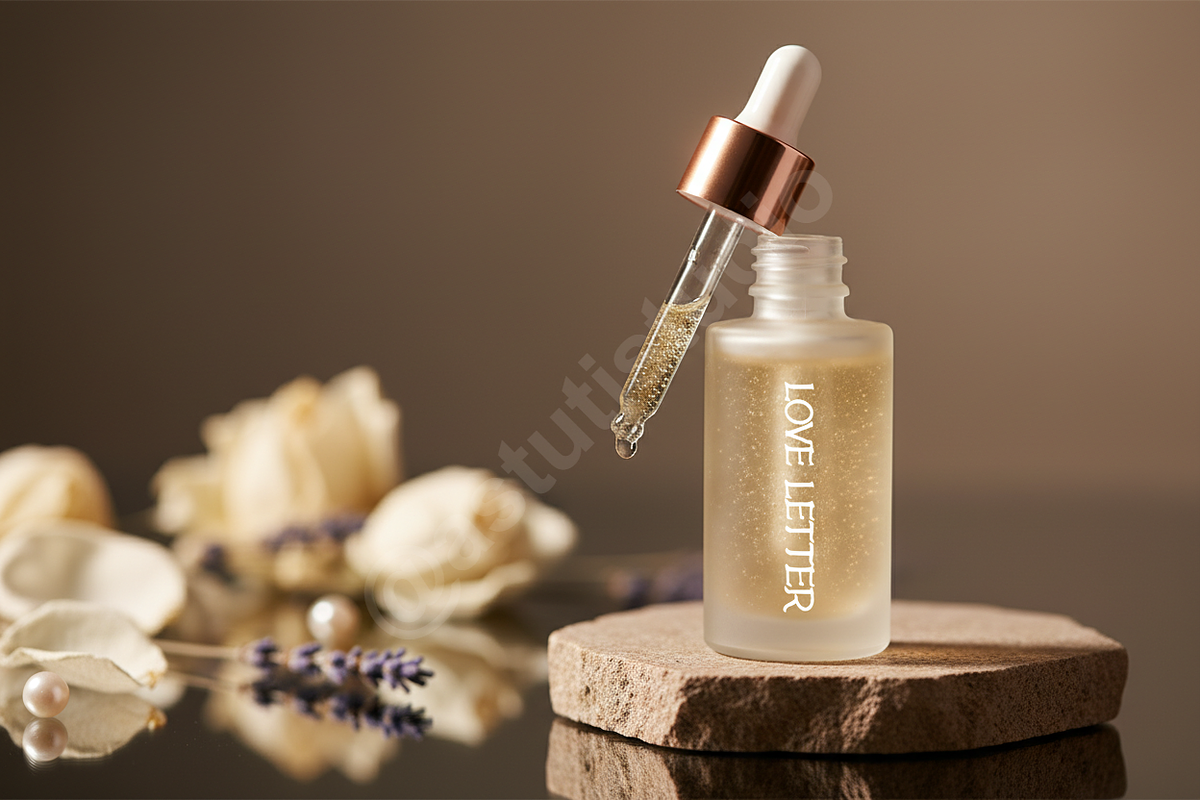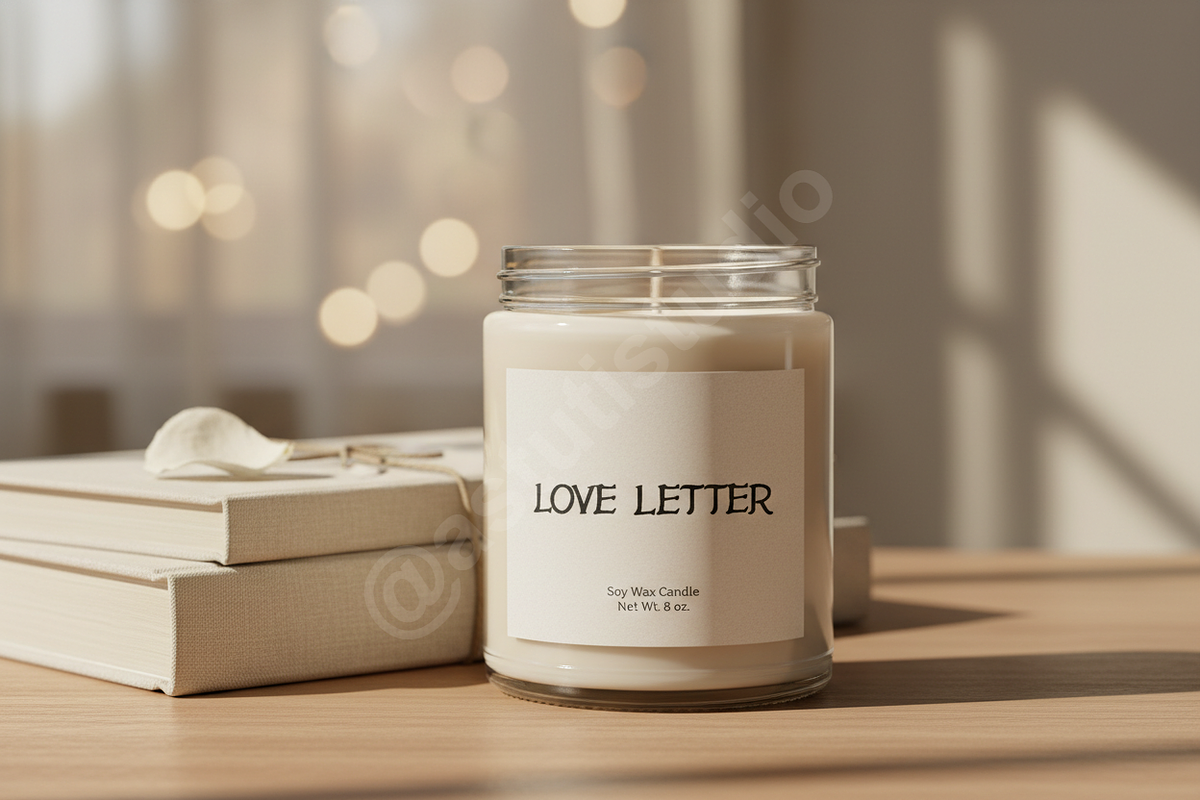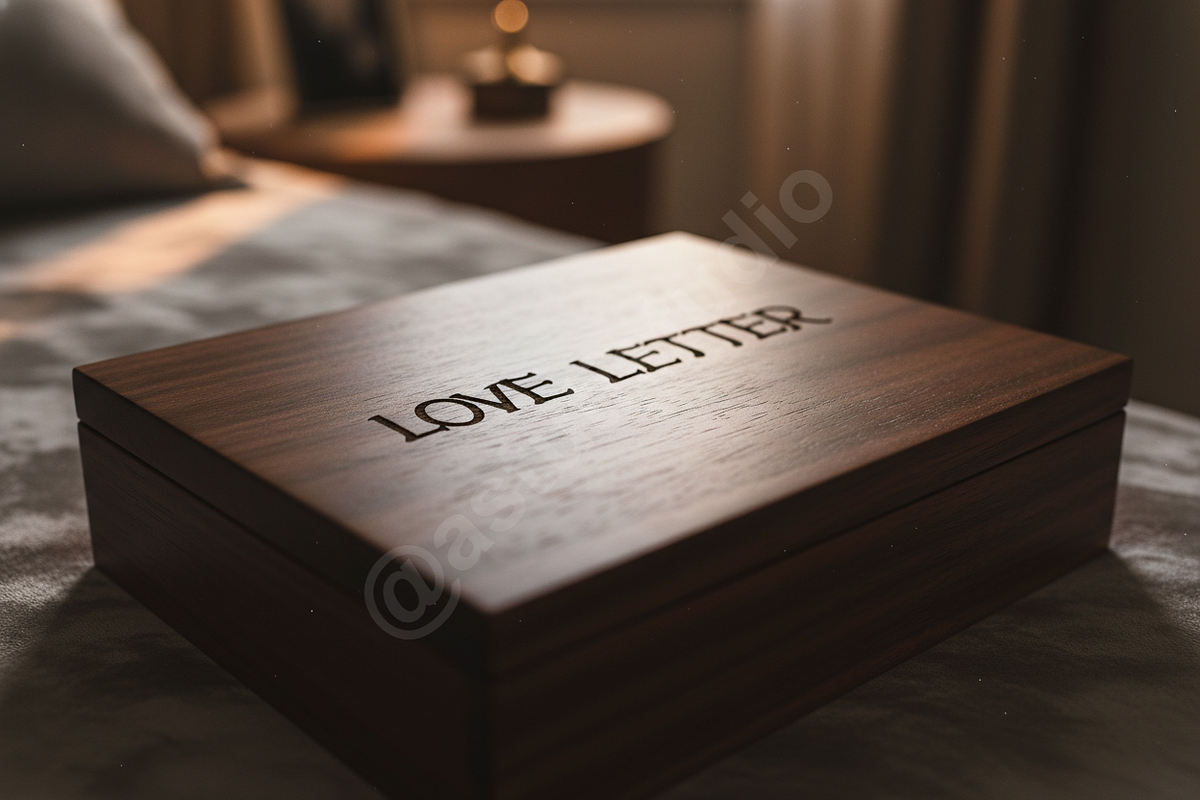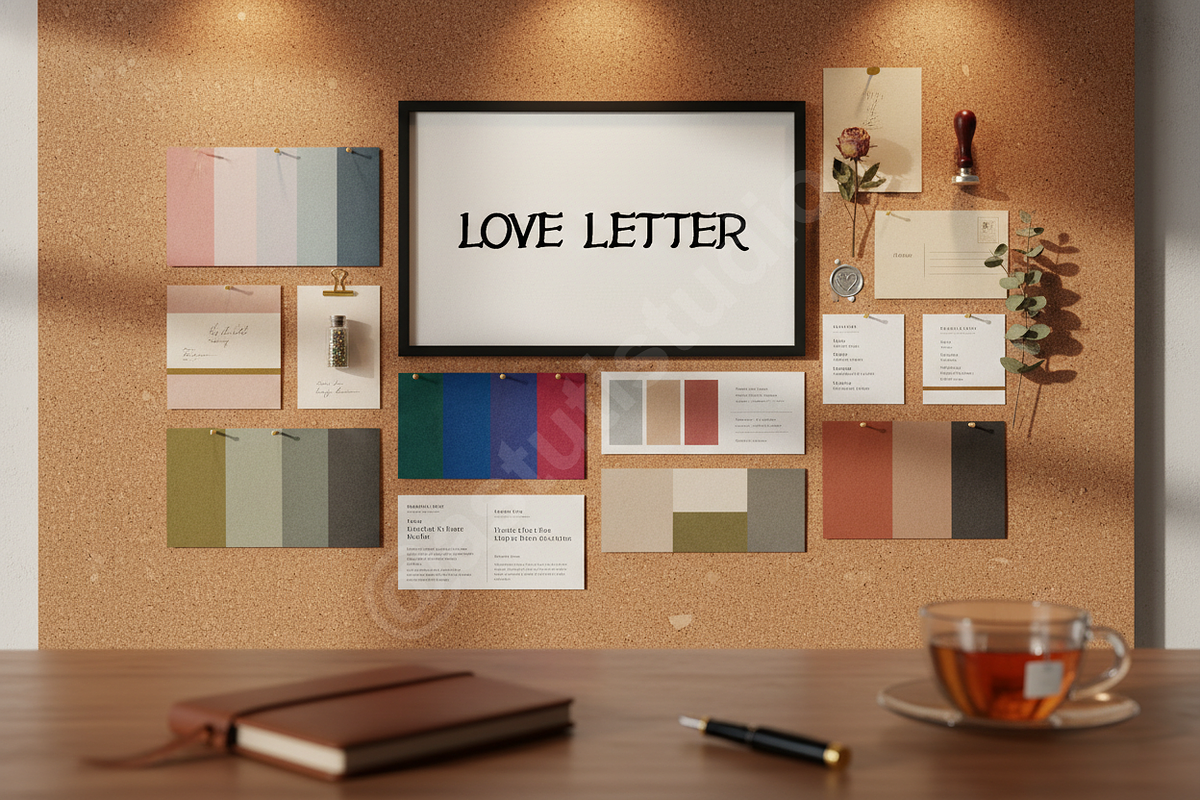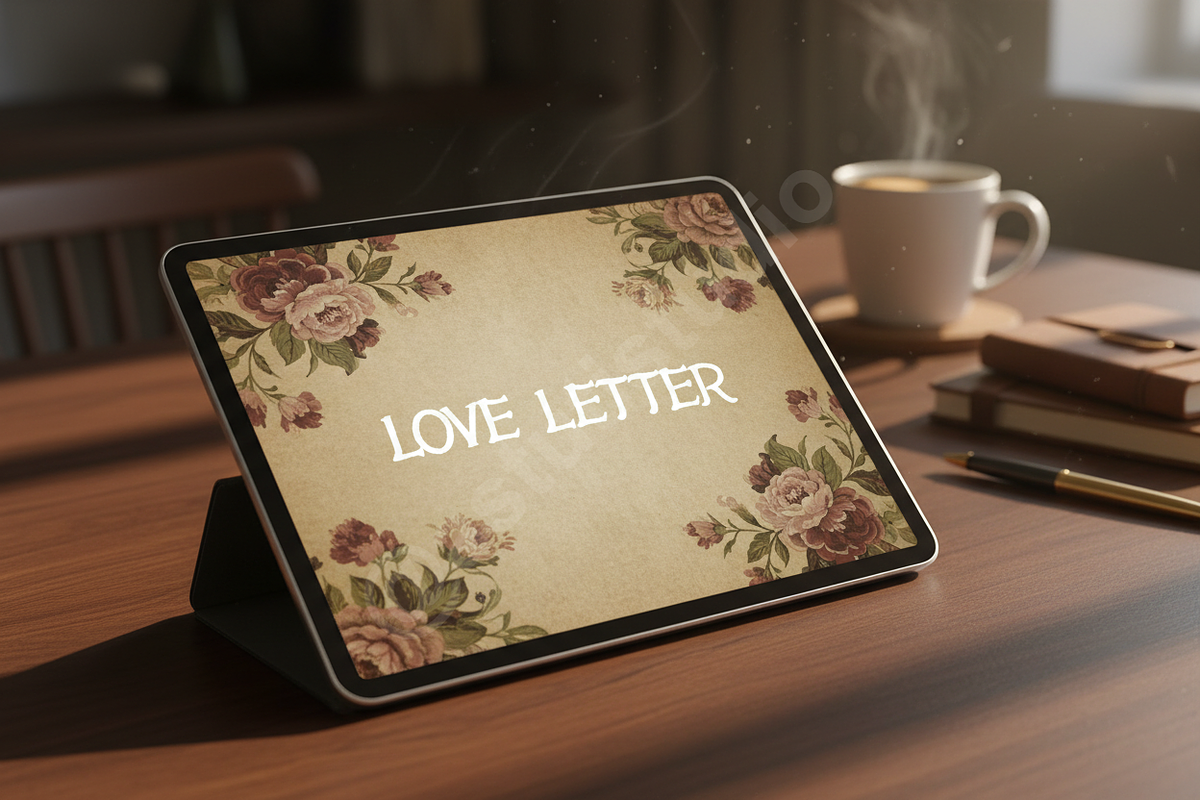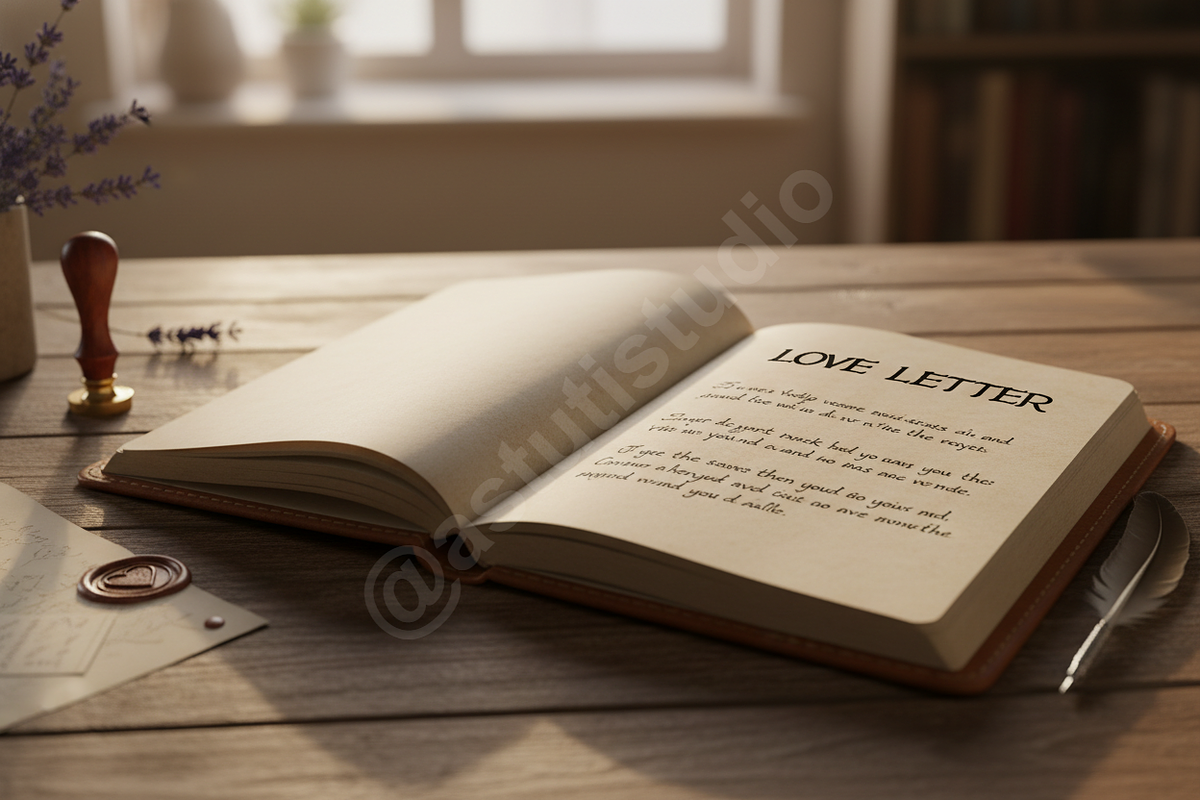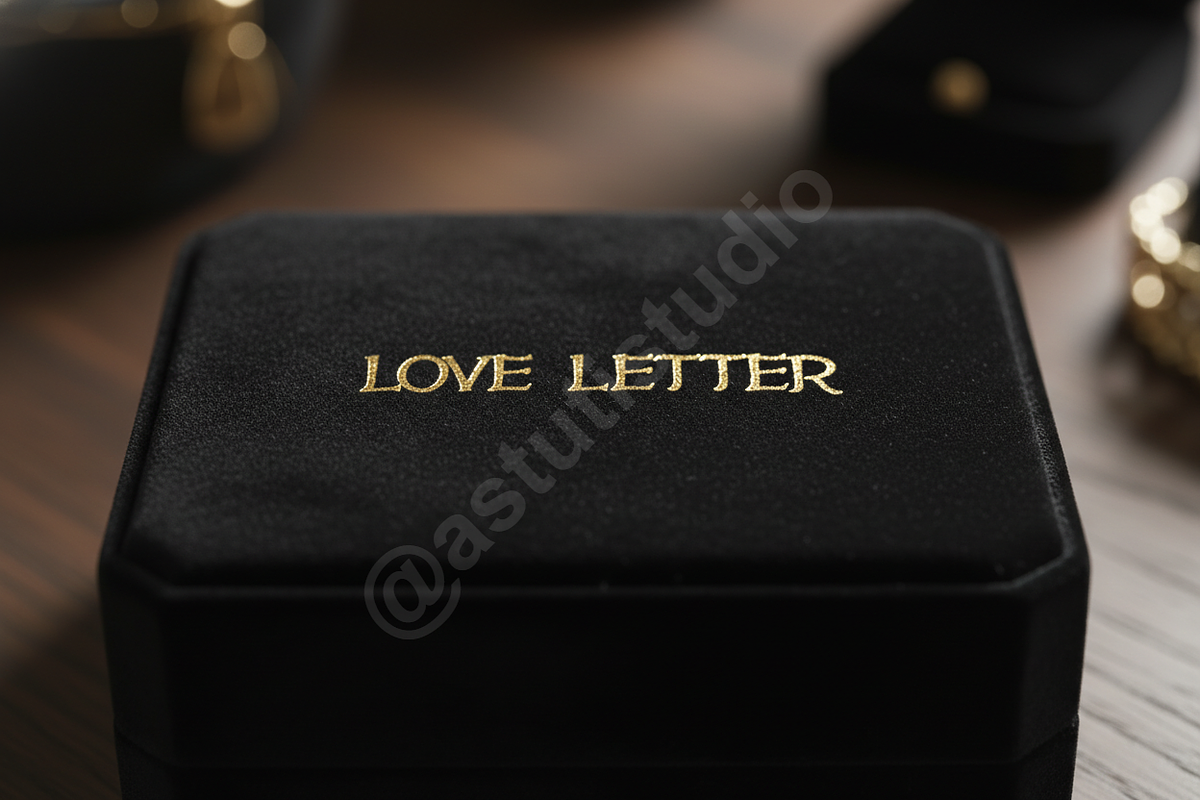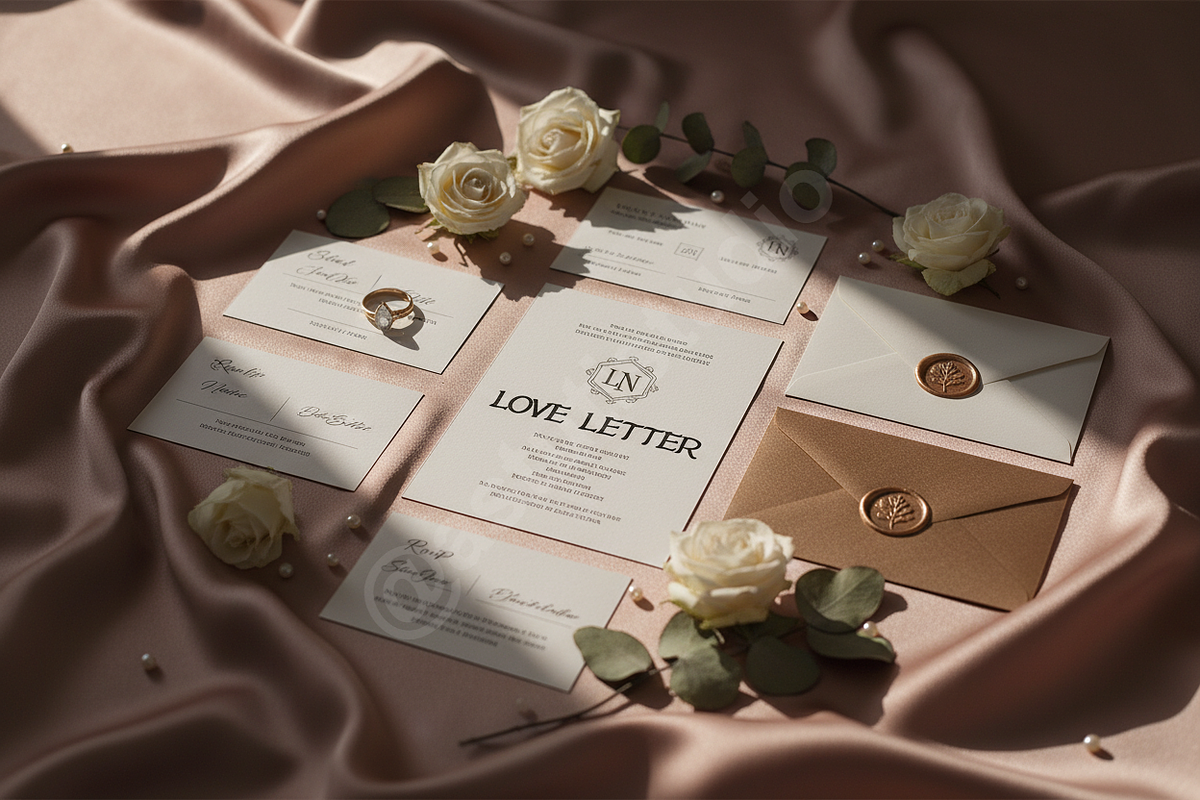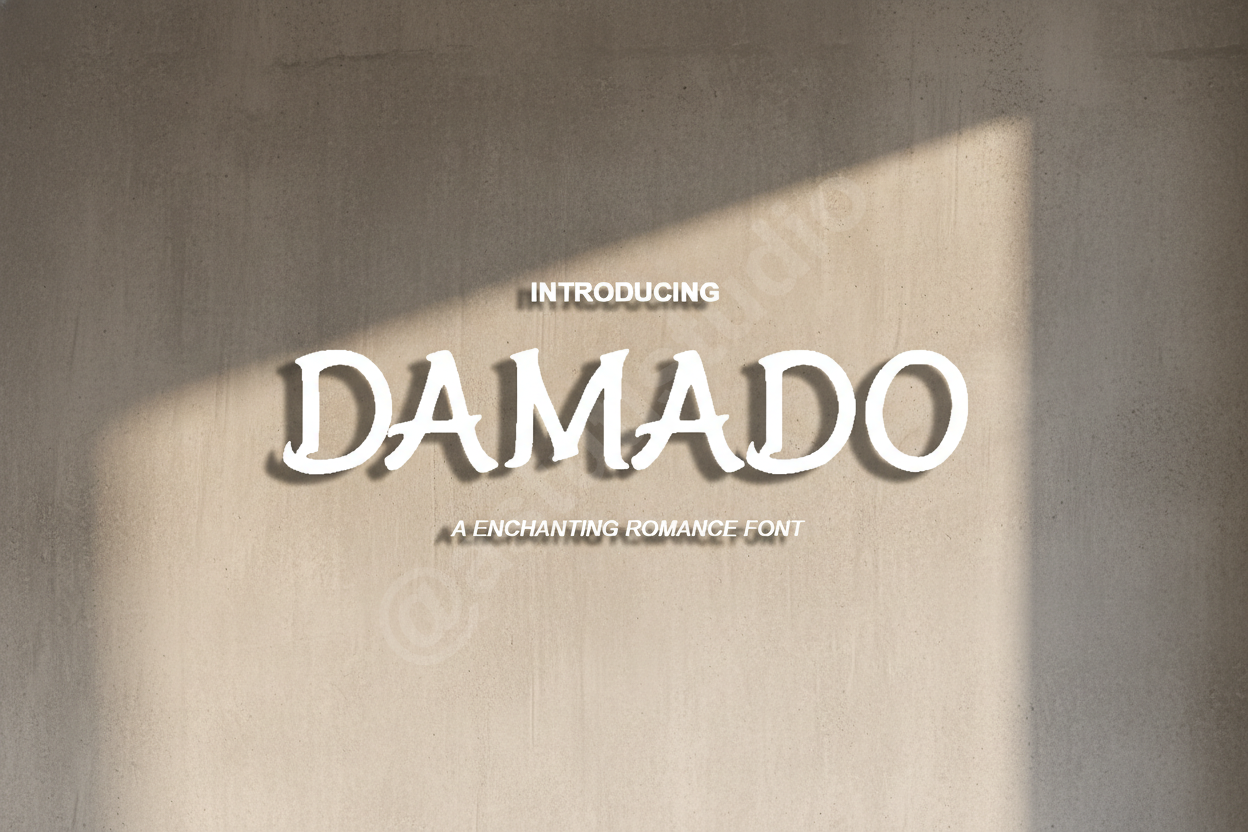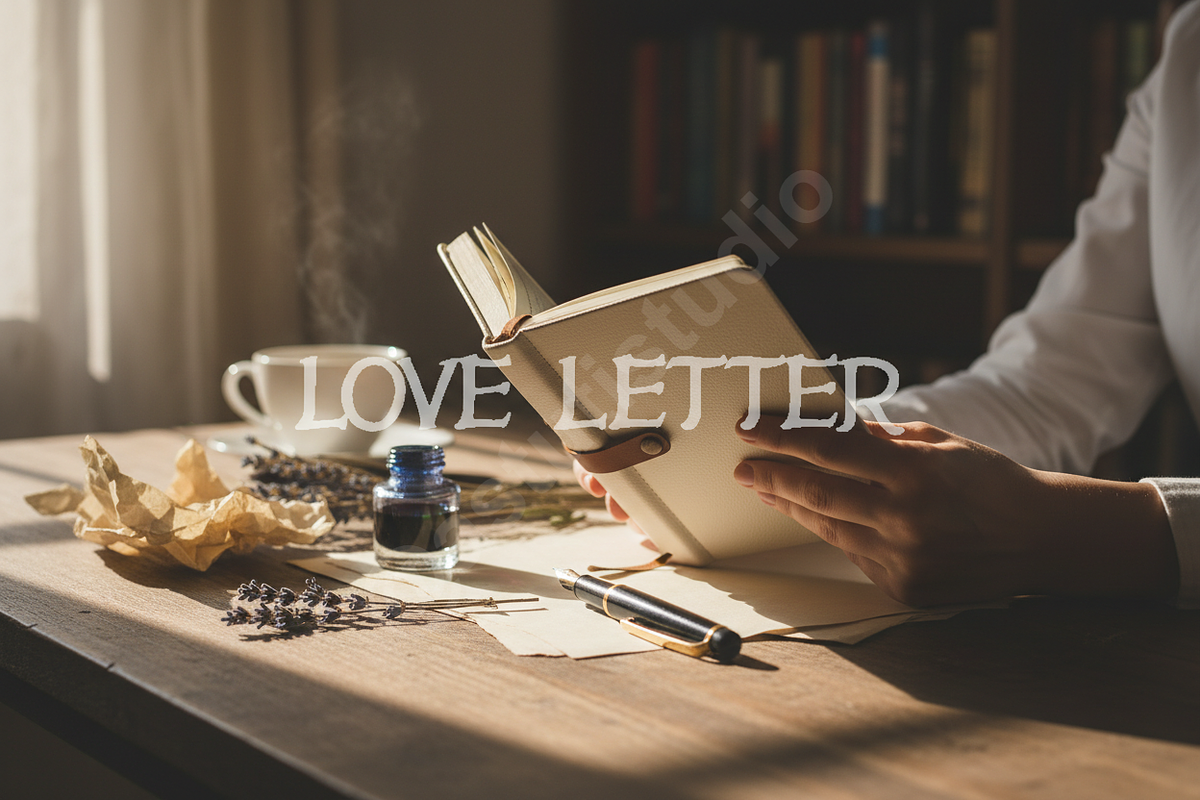
Damado – Elegant Serif Typeface for
Damado is a meticulously crafted serif typeface designed to infuse your projects with unparalleled sophistication and timeless elegance. Perfectly suited for luxury branding, upscale editorial layouts, and captivating social media presence, Damado exudes an aura of refined modernity. Its delicate curves, strong presence, and exceptional readability make it an indispensable asset for designers seeking to convey prestige, quality, and a high-end aesthetic.
- Sophisticated Serif Design: Crafted with elegant details that command attention.
- Optimized for Readability: Ensures clarity and legibility across both print and digital mediums.
- Extensive Ligatures & Stylistic Alternates: Offers creative versatility for unique typographic compositions.
- Multilingual Support: Broad language support to extend your global reach.
- Versatile Weights: Includes essential weights (e.g., Regular, Bold) for diverse design needs.
- Pristine Kerning & Spacing: Meticulously adjusted for a harmonious and balanced appearance.